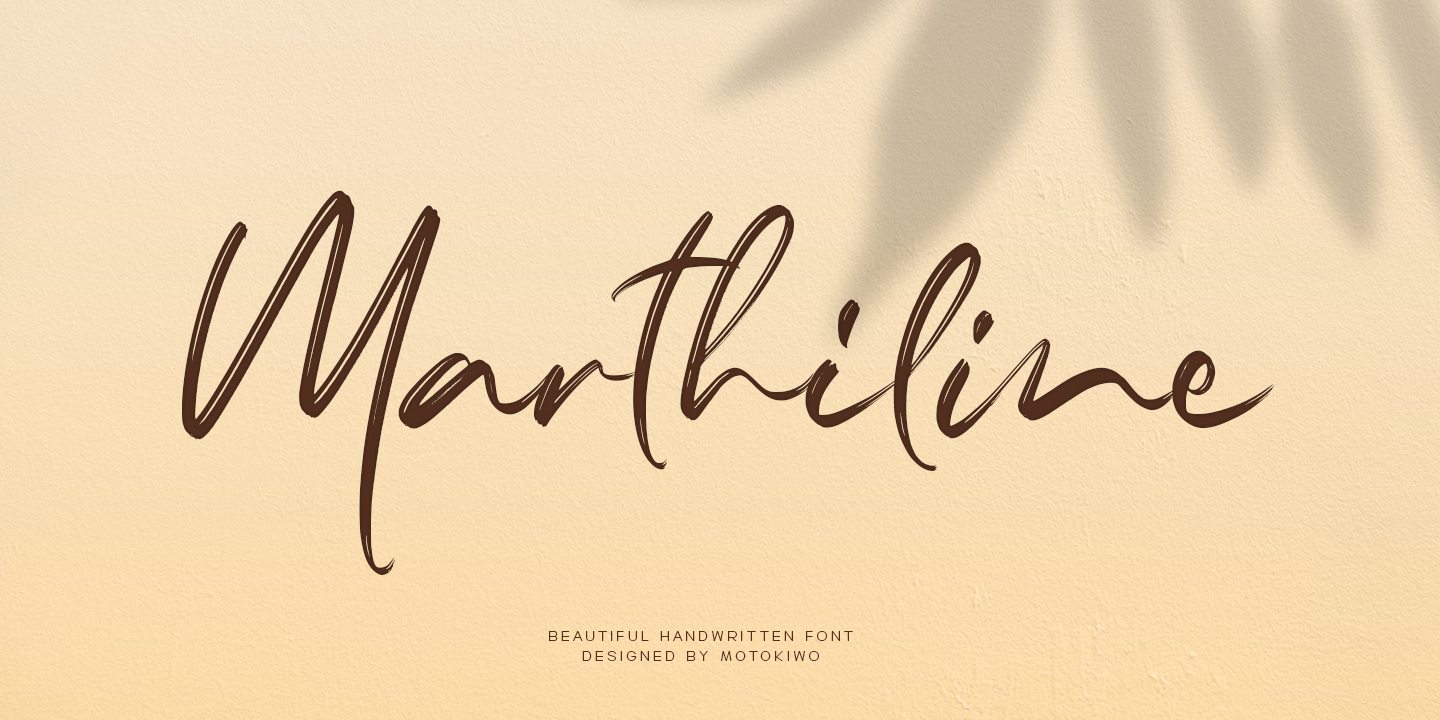
Marthiline Font Free Download is an elegant and modern script typeface with a luxurious, handwritten feel. Featuring smooth curves, delicate strokes, and an artistic flow, this font is perfect for creating sophisticated branding, wedding invitations, logos, packaging, and any project that requires a personal and refined touch.
The fluid and graceful letterforms of Marthiline offer excellent readability while adding a sense of style and elegance to both print and digital designs. Whether you're working on high-end marketing materials, personal stationery, or exclusive brand identities, Marthiline Font Free Download provides the perfect balance of refinement and charm.
Available in various styles and optimized for diverse design needs, Marthiline allows you to craft beautifully flowing typography for your creative projects. Download Marthiline Font Free Download today and infuse your work with elegance and sophistication.